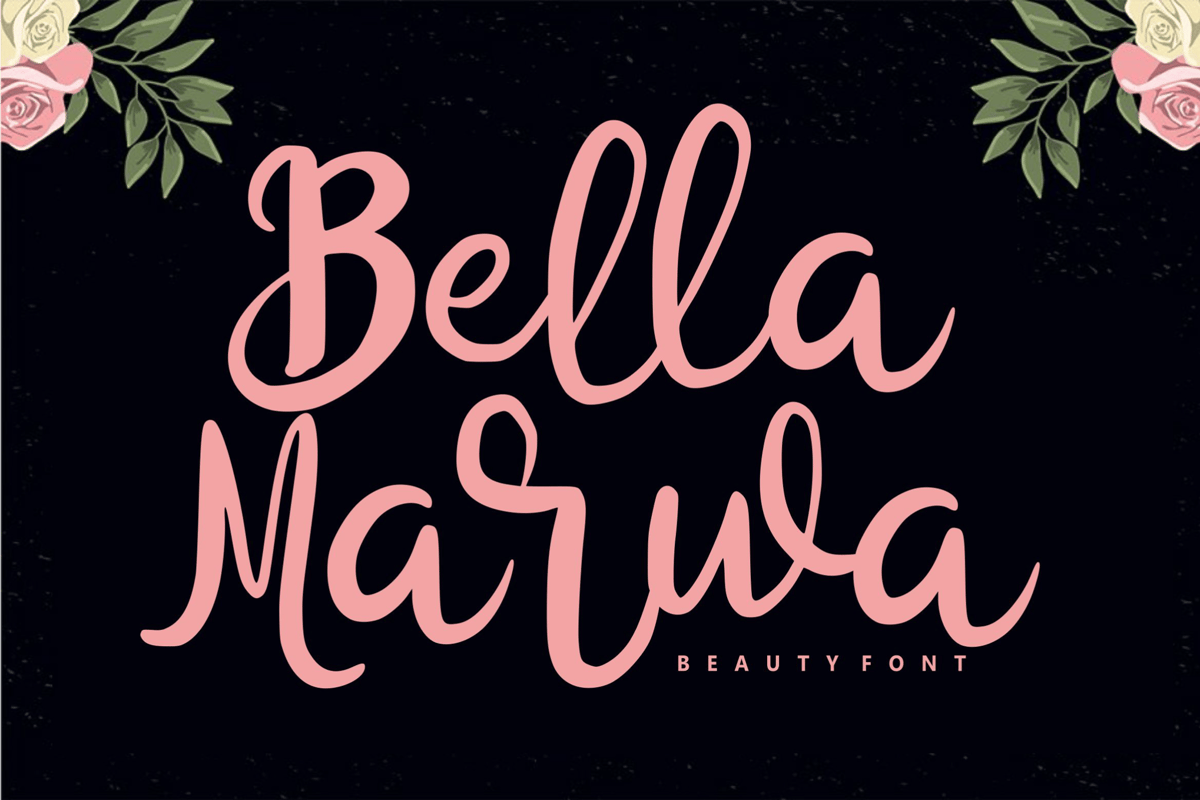
Free Bella Marwa - Beauty Font
Bella Marwa is a gorgeous handwritten script font built for elegant, feminine design projects.
With flowing curves and a naturally organic feel, this beauty typeface brings warmth and sophistication to any layout. It's a perfect fit for invitations, greeting cards, branding materials, business cards, quotes, and posters.